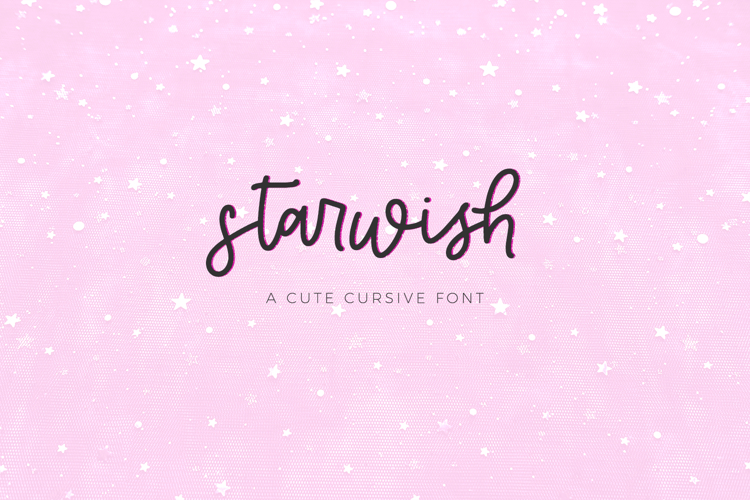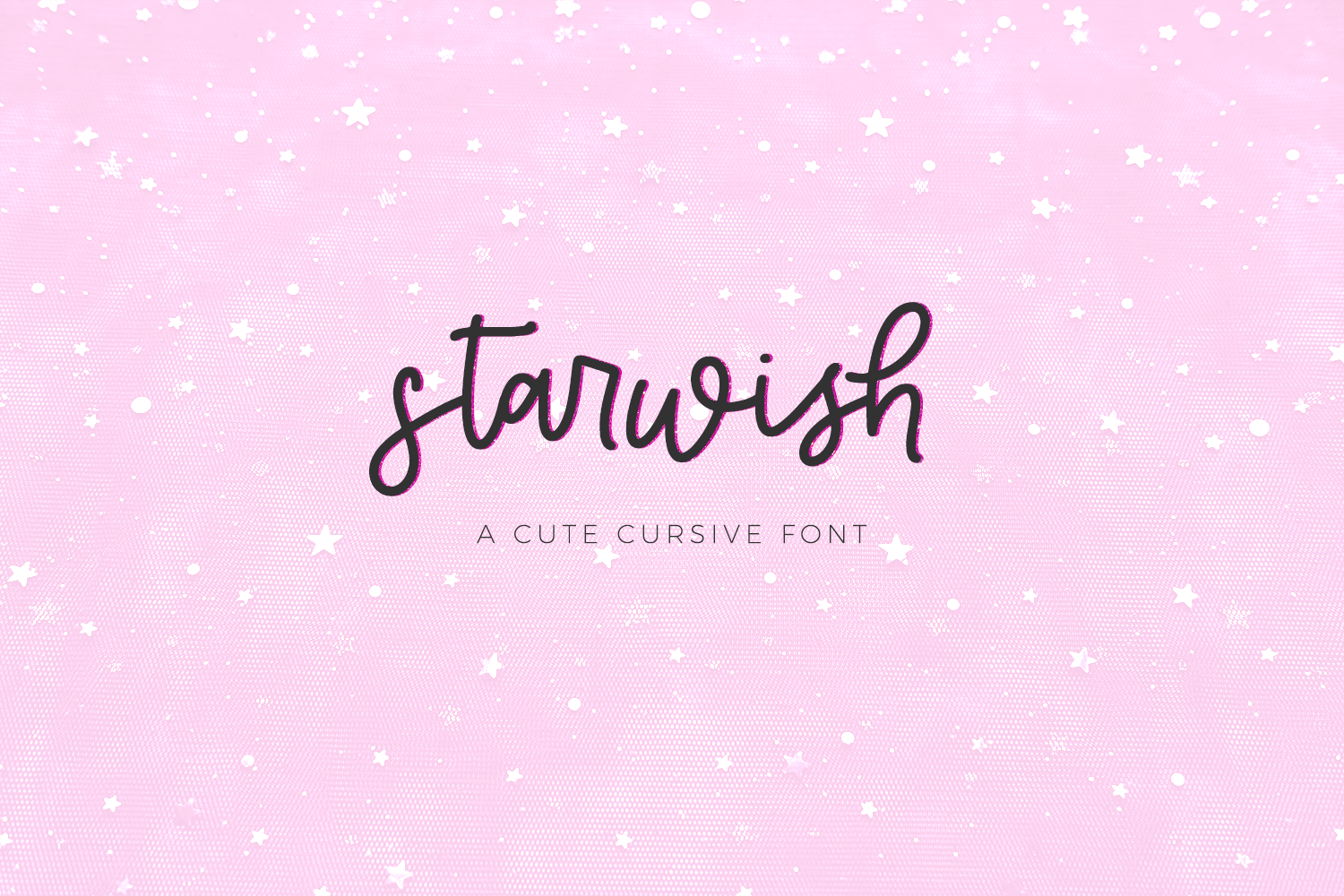
Starwish Script
Starwish Script is a modern monoline calligraphy font. Starwish includes some alternates & ligatures to enhance the handwritten look & feel! This font is perfect for logos & branding, greeting cards, painted banners, digital planners, note-taking apps, Canva, Cricut projects, Silhouette projects, designing SVG files, laser cutting projects, & more.
Starwish Script includes:
- 22 alternates - a, b, c, d, e, f, g, h, i, j, k, l, m, n, o, p, q, r, s, t, y, z
- 20 ligatures - ar, as, ax, er, es, ex, ir, is, ll, mm, nn, or, os, rr, ss, th, tt, ur, us, ux